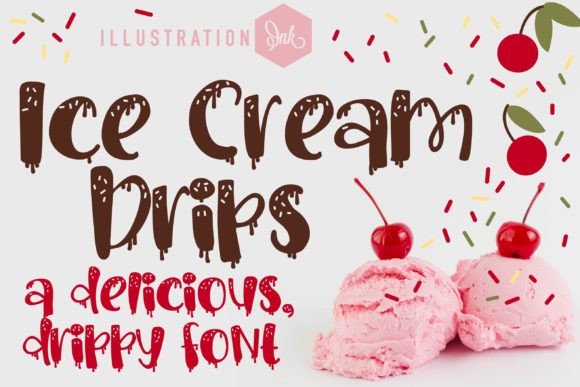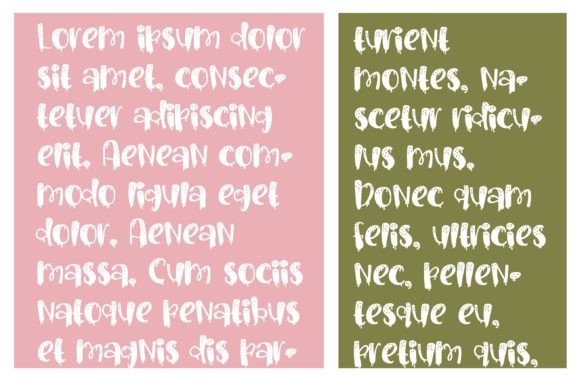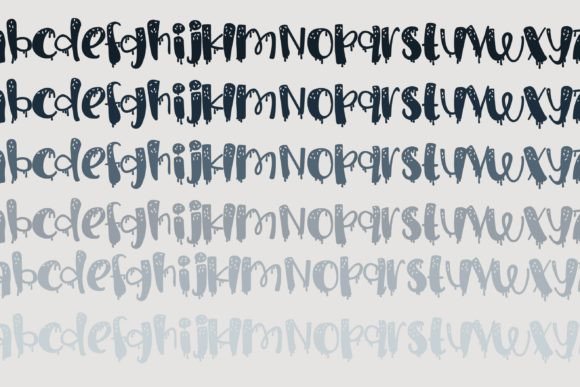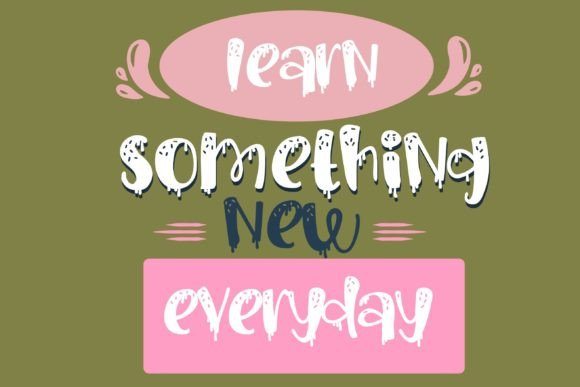
Ice Cream Drips Font
About the Ice Cream Drips Font
From logos to headlines, the Ice Cream Drips Font is the perfect choice for making a lasting impression. Ice Cream Drips is a fun and playful font that looks like colorful ice cream dripping down. It’s perfect for adding a sweet, whimsical touch to your designs!
Ice Cream Drips excels in projects requiring a lighthearted, playful aesthetic. It’s ideal for headlines, short slogans, logos for ice cream parlors or children’s brands, and packaging for sweet treats. Consider using it in posters for summer events or playful social media graphics. However, its highly stylized nature makes it unsuitable for body text or UI elements where readability is paramount. Long blocks of text set in this font would be incredibly difficult to read.
Pairing Ice Cream Drips with a clean sans-serif like Helvetica Neue for supporting text creates a strong contrast, balancing the playful drips with a sense of order. Alternatively, a classic serif font like Garamond could add a touch of sophistication, contrasting the fun, informal style. For a more whimsical pairing, consider a rounded, geometric sans-serif.
The font’s core personality is undeniably playful and whimsical, embodying a sense of youthful energy and sweet indulgence. Its informal nature makes it unsuitable for projects demanding sophistication or seriousness.